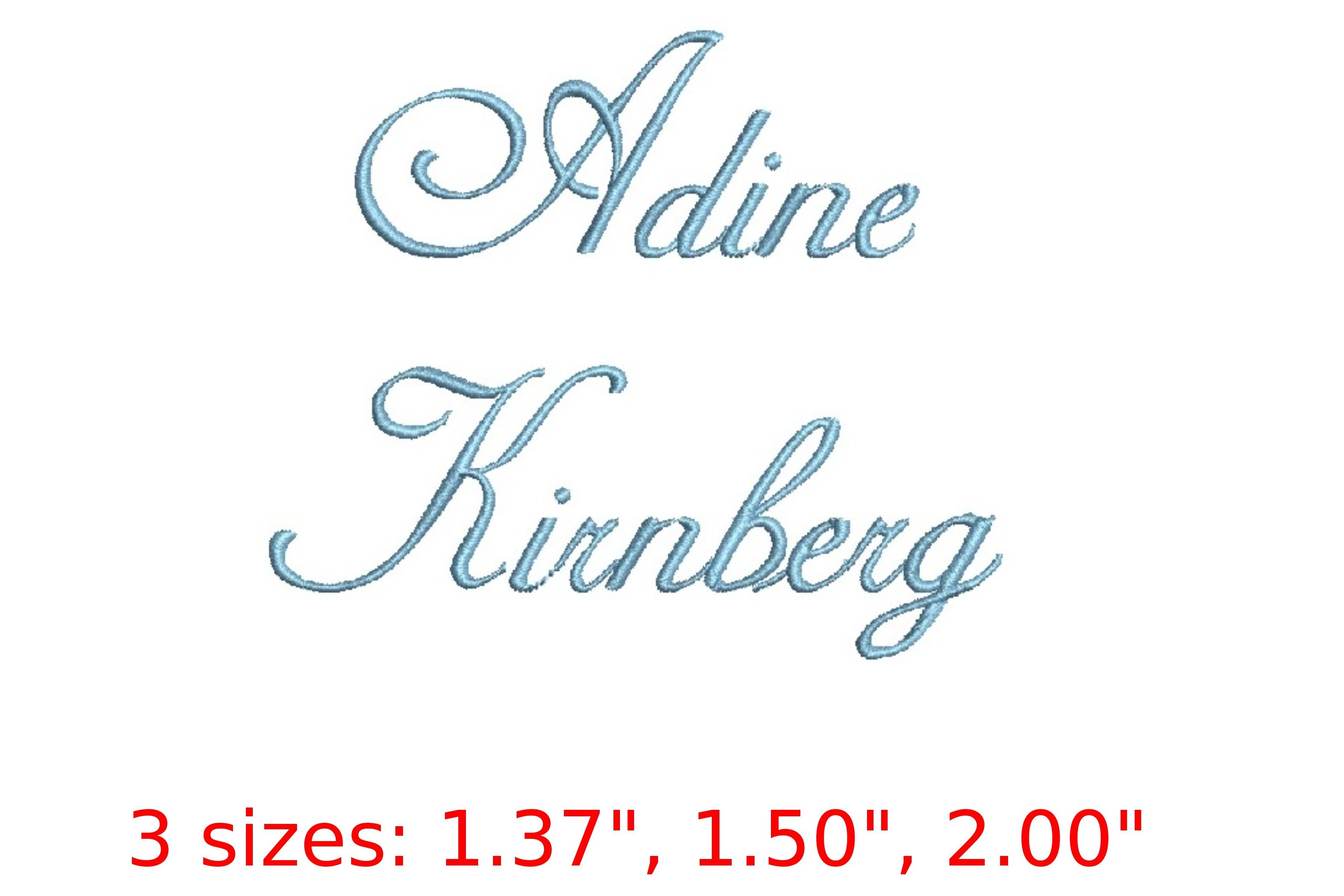
Adine Kirnberg Embroidery Font
Experience the allure of Adine Kirnberg script embroidery font, designed to mesmerize with its decorative and calligraphic charm. This font's elegant and ornate letterforms elevate any project, particularly formal designs. Complementing its aesthetic appeal is its compatibility with the popular PES file format, making it seamlessly functional with embroidery machines such as Brother, Babylock, and many others. Discover the endless possibilities of personalized monograms, invitations, and more as you harness the timeless sophistication of Adine Kirnberg. With its compatibility and exquisite design, this font is a must-have for embroidery enthusiasts seeking to create stunning and memorable pieces. Unlock your creativity today! The sizes and stitches information shown below is for "A" and "a" in each size. This is provided as a summary of what is available in this download file. For the full dimension details of the 156 letters in this set, click on the More Sewing Info (PDF) button on this page.